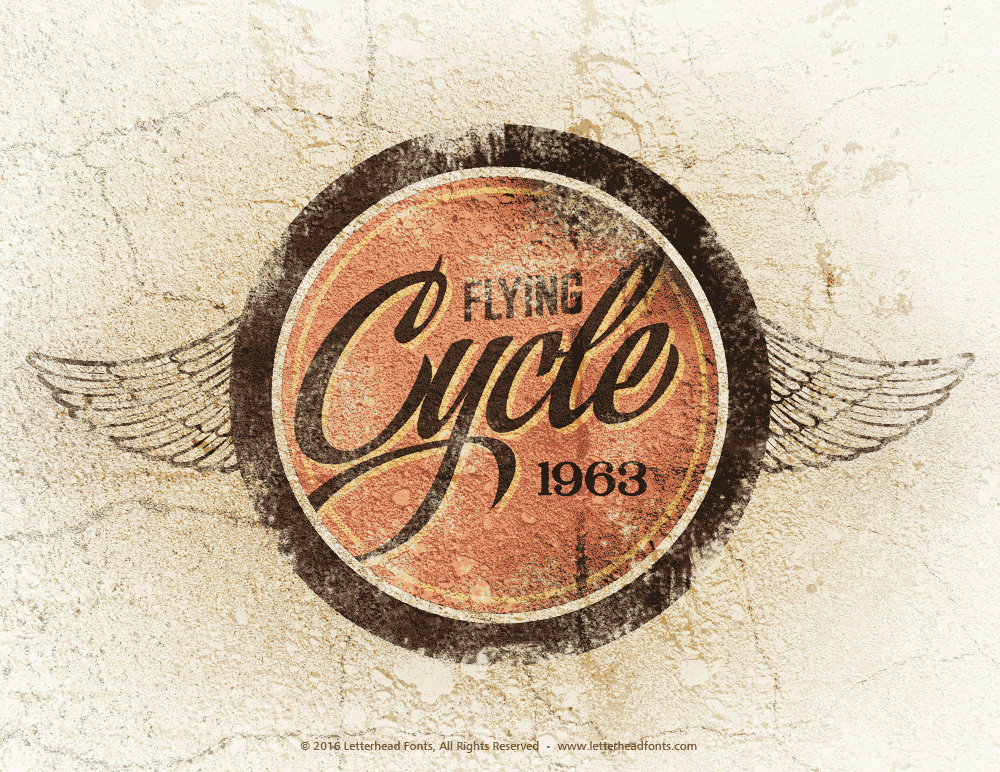
Jeff Marshall Script 1.4
Veteran sign painter Jeff Marshall has been hand-lettering this script for several years. Now, for the first time, dazzle your own clients with this useful and eye-catching script. Perfect for designs requiring a personal feel. This OpenType Pro font includes 44 bonus alternate letters and ligatures and 10 swashes to place under your words. You might also like Signkit Script.
Bonus Alternates, Ligatures & Swashes